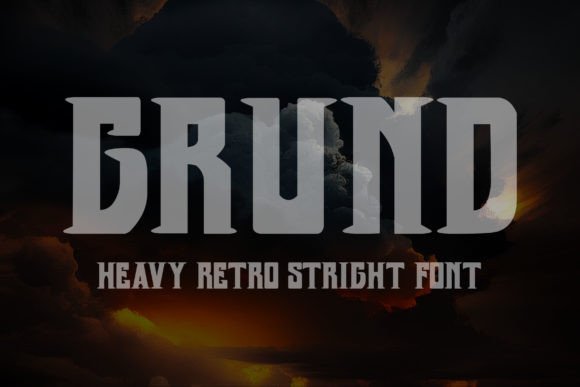
**Introducing Grund Font: The Ultimate Display Advertising Champion**
In a world saturated by visual noise, capturing attention and making an impact has become a daunting task. Your display ads need to stand out, communicate effectively, and leave a lasting impression. And that's exactly where Grund Font steps in - an extraordinary sans serif font meticulously crafted to elevate your advertising game.
**Why Grund Font? Here's Why:**
Grund Font possesses a unique blend of boldness, retro charm, and unmistakable character. Its robust letterforms command attention, while the subtle hint of nostalgia adds depth and personality to your messages. Whether you're creating captivating headlines, eye-catching banners, or impactful social media graphics, Grund Font ensures your words resonate with power and distinctiveness.
**Benefits Galore:**
* **Magnetic Headlines:** Grab attention from the get-go with headlines that jump off the screen. Grund Font's bold presence ensures your messages are impossible to ignore.
* **Storytelling Masterpiece:** Create display ads that tell captivating stories, engaging your audience on an emotional level. Grund Font's retro charm adds a touch of nostalgia and authenticity to your narratives.
* **Clarity Unparalleled:** Say goodbye to pixelated, blurry fonts. Grund Font's sharp, crisp lines render beautifully across all devices, ensuring your messages are crystal clear and legible, even at small sizes.
* **Effortless Customization:** Tailoring Grund Font to match your brand's unique identity is a breeze. With a wide range of weights and styles, you have the flexibility to create display ads that seamlessly align with your brand's aesthetics.
**Perfect for:**
* **Display Ads:** Grund Font's undeniable charisma makes it the ideal choice for display ads that demand attention and deliver results.
* **Websites and Landing Pages:** Create visually stunning websites and landing pages that captivate visitors and drive conversions. Grund Font's bold presence adds a touch of sophistication and professionalism to your digital presence.
* **Social Media Graphics:** Stand out in the crowded social media landscape with captivating graphics that entice users to engage, share, and follow. Grund Font's distinctive style adds a touch of authenticity and personality to your social media campaigns.
* **Marketing Materials:** Elevate your marketing materials, from brochures and flyers to posters and billboards, with Grund Font's bold, attention-grabbing style.
**Conclusion:**
Grund Font is more than just a font; it's a powerful tool that empowers you to create display ads and marketing materials that resonate, engage, and inspire. Its unique blend of boldness, retro charm, and versatility makes it the ultimate choice for businesses looking to make a lasting impact in the digital realm. Download Grund Font today and unleash the full potential of your advertising campaigns.